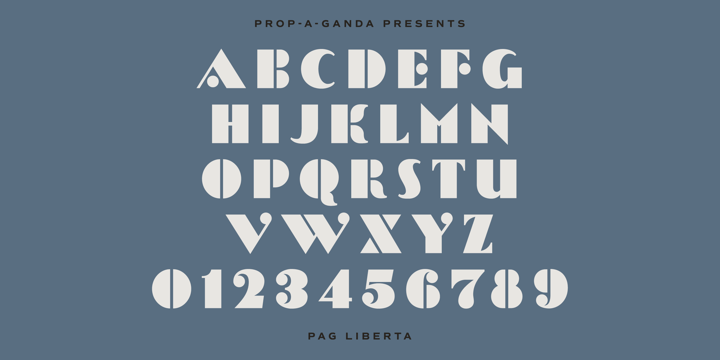
PAG Liberta
PAG Liberta by Prop-a-ganda
PAG Liberta Font Family was designed by Ryoichi Tsunekawa and published by Prop-a-ganda. PAG Liberta contains 1 styles. More about this family
About PAG Liberta Font Family
Prop-a-ganda offers retro-flavored fonts inspired by lettering on retro propaganda posters, retro advertising posters, retro packages all the world over. This is perfect font for your retrospective project. Very bold stems. Pointed Apexes. Bars and some of the terminals which designed as a ball are very eye-catching. These features make a strong impact with nostalgic feel.